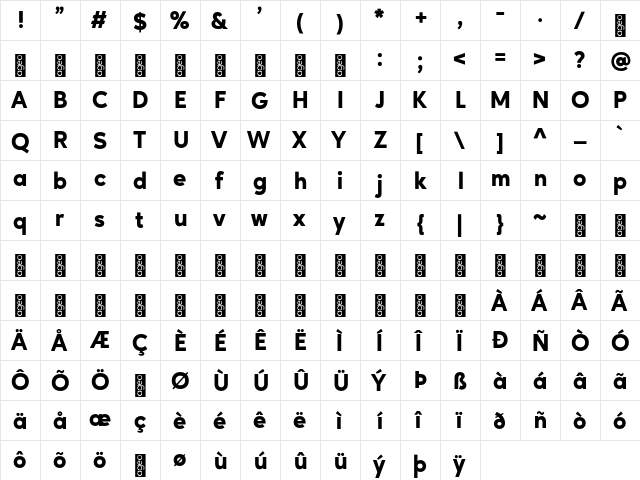
Ageo Personal Use Heavy Regular Font Preview
Ageo Personal Use Heavy Regular
Design Context for Ageo Personal Use Heavy Typeface
Ageo Personal Use Heavy takes a measured approach to typography — its balanced proportions and neutral character make it a reliable workhorse for both digital and print work.